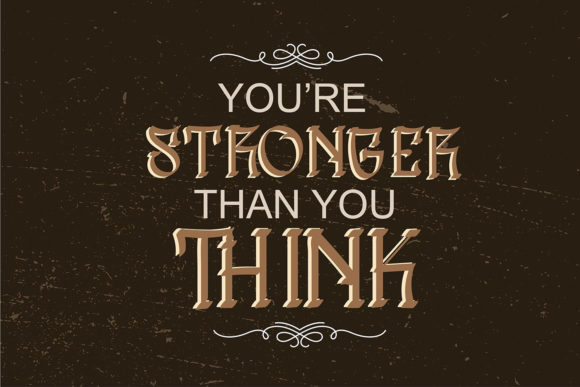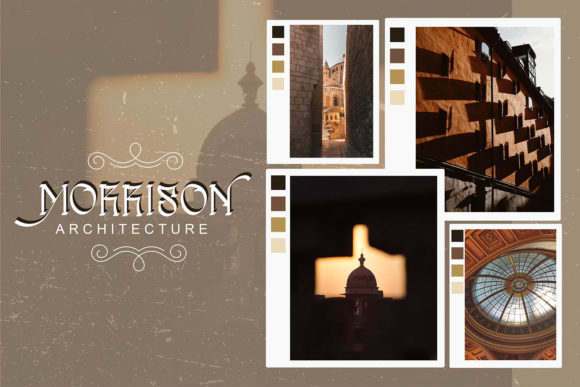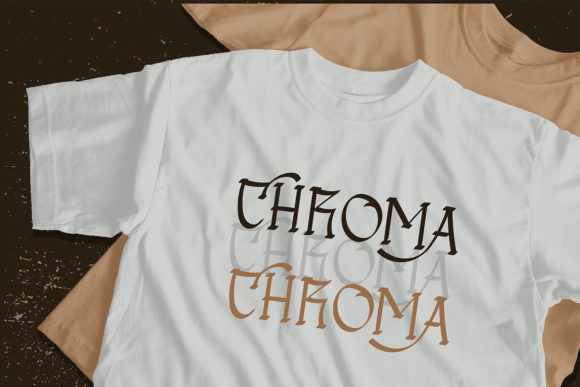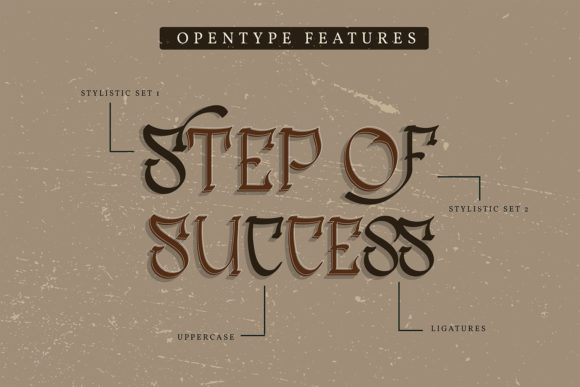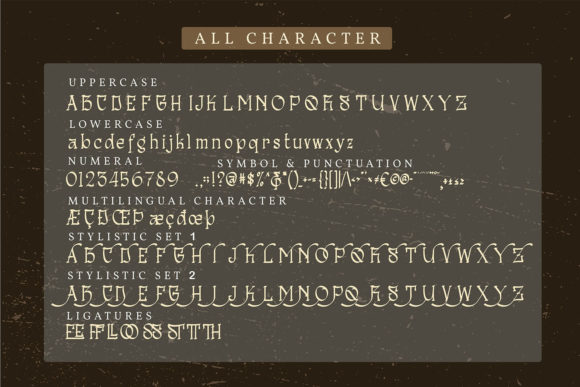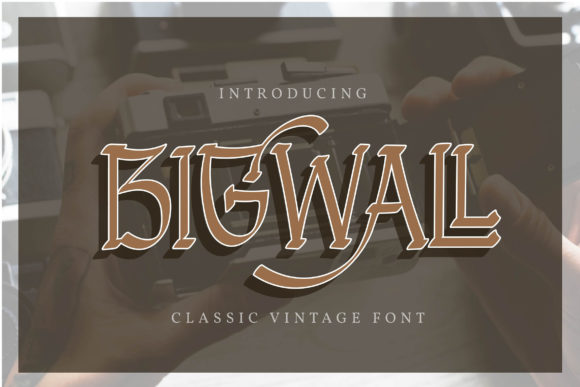
The Bigwall Font: A Retro, Imposing Serif to Elevate Your Designs
Have you ever been in the middle of a design project, and suddenly, you’re stuck on finding the perfect font? I recall a recent experience where I was working on a branding project for a client who wanted a bold, vintage look. After hours of searching, I stumbled upon the Bigwall font, and it instantly became my go-to. In this article, I’ll share my love for this font, its features, and provide a comprehensive guide on how to use it.
An Honest Review of Bigwall Font
Bigwall is a retro, imposing, and distinct serif font that’s masterfully designed to become a true favorite among designers. Here’s what I love about it:
• ✨ Unique and distinctive serif style that’s perfect for headlines and titles
• ✅ PUA encoded, making it easy to access all glyphs and swashes
• 💯 Highly legible, even at small font sizes
• 🎨 Versatile and can be used for various design projects, from branding to packaging
While Bigwall is an excellent font, there are a few minor quirks to consider:
• 🤔 Limited support for non-English characters, so it’s best to use it for English-based projects
• ⚠️ Some users may find the font a bit too bold for certain applications, but this can be adjusted by using different font weights or styles
The Design Story Behind Bigwall
Bigwall was designed with the intention of creating a bold, retro-inspired serif font that would make a statement. The designer aimed to craft a font that would be both elegant and imposing, perfect for headlines and titles. With its unique character set and PUA encoding, Bigwall has become a favorite among designers looking for a distinctive font to elevate their designs.
What is Bigwall font? Bigwall is a retro, imposing, and distinct serif font designed for headlines and titles.
Does Bigwall font support OpenType features? Yes, Bigwall font supports OpenType features, including glyphs and swashes, thanks to its PUA encoding.